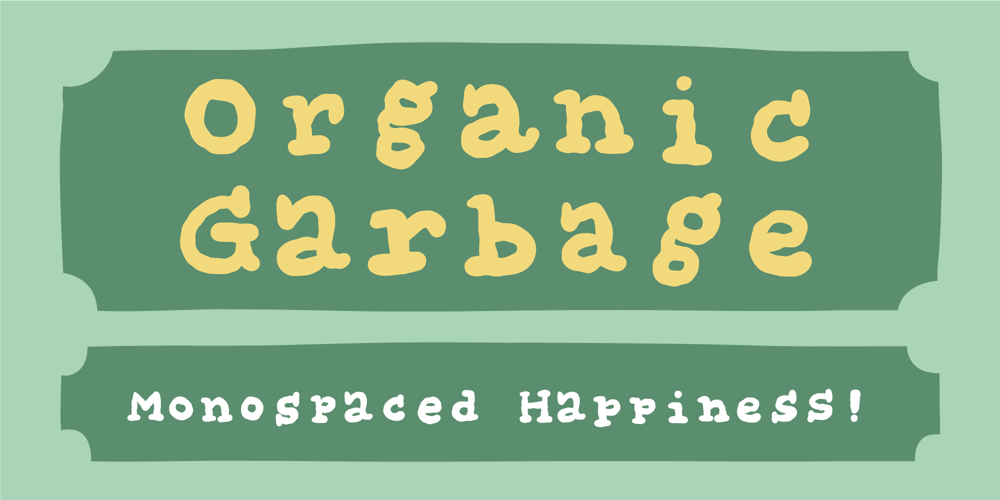
Organic Garbage
Organic Garbage font
Organic Garbage Font Family was designed by Jakob Fischer and published by Bogstav. Organic Garbage contains 2 styles and family package options. Organic Garbage is another one of my monospaced fonts with an organic look. I made sure to make enough different versions of each lowercase letter, to make your text lively and more energetic – actually I made 5 different versions that automatically changes as you type!